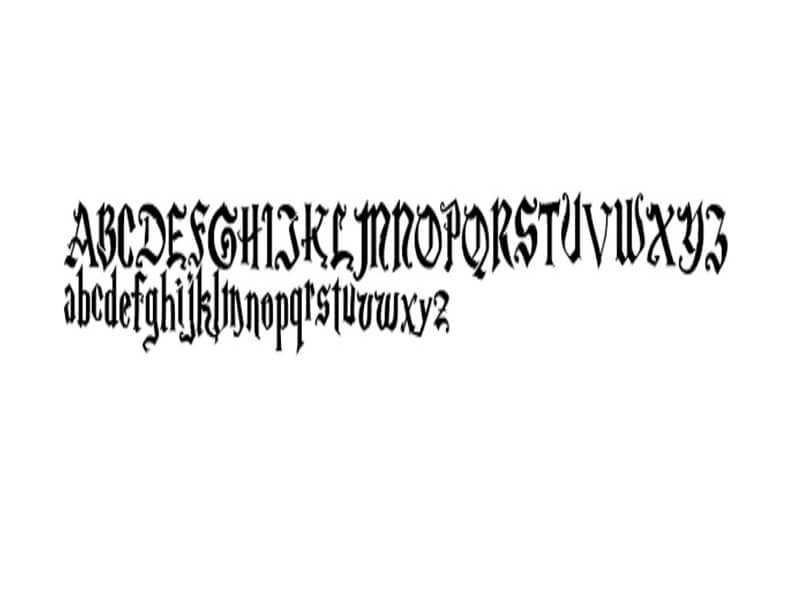
List Of Wicked Fonts Ideas
List Of Wicked Fonts Ideas. The font used for “wicked” is very similar to rubens wide by. Nov 26, 2020 543 21.
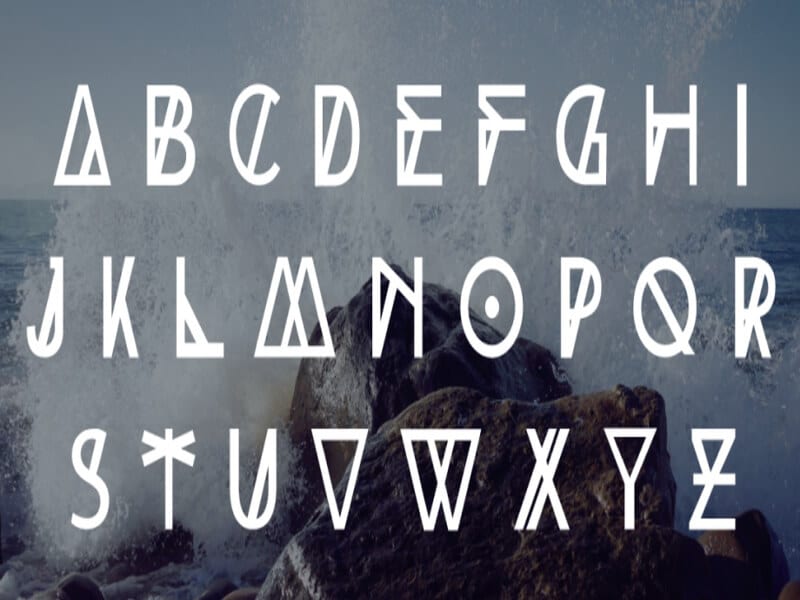
Lil johnny à € by mans greback. It is based on the 1995 gregory maguire novel wicked: Every font is free to download!
Wicked halloween is a bold and spooky decorative font. We have 3 free wicked fonts to offer for direct downloading · 1001 fonts is your favorite site for free fonts since 2001 Wicked mouse is a playful display font that captures the magic of cartoons from a distant era.
Wicked fonts is perfect for designing signs, invitations, banners, graphics and more for any spooky occasion. Individual styles from $22.00 wicked awesome font family was designed by nicky laatz and published by nicky laatz. In script > calligraphy 46,499 downloads (2,600.
Wicked awesome contains 1 styles and family package. All fonts are available in opentype. That has a unique and advanced style of various fonts.
This Stunning Font Family Belongs To The.
Wicked font free download today we are consulting on a very famous font that has great fame in the designing industry known as wicked font. This unique font is inspired by the work of massimo vignelli and his. The font used for “wicked” is very similar to rubens wide by.